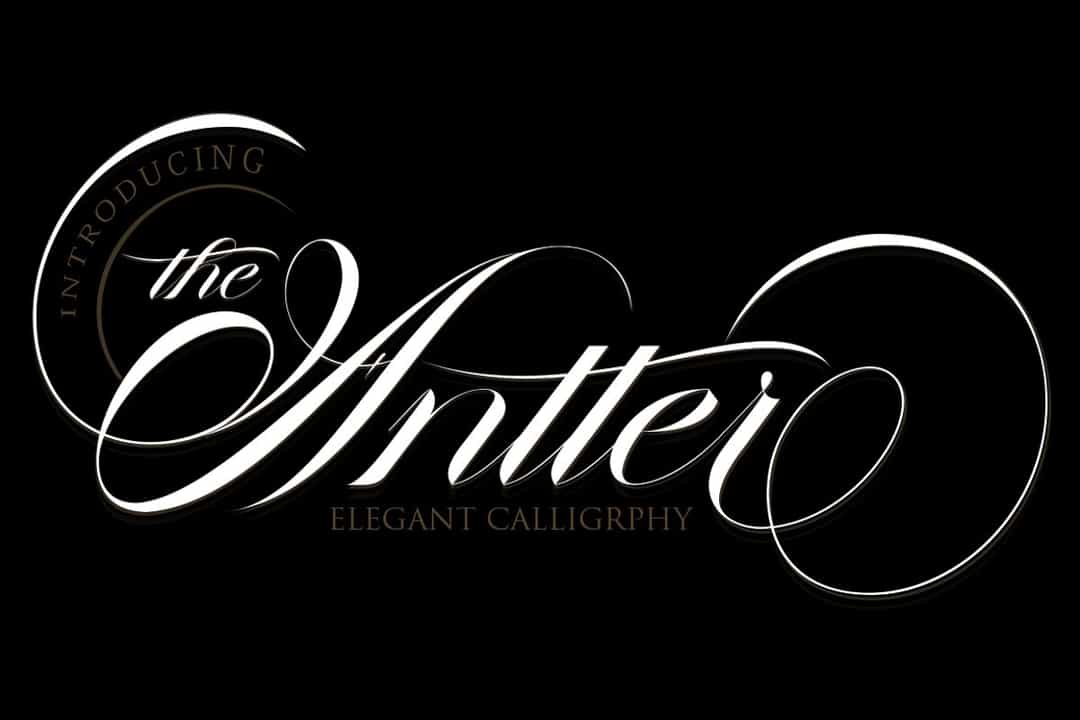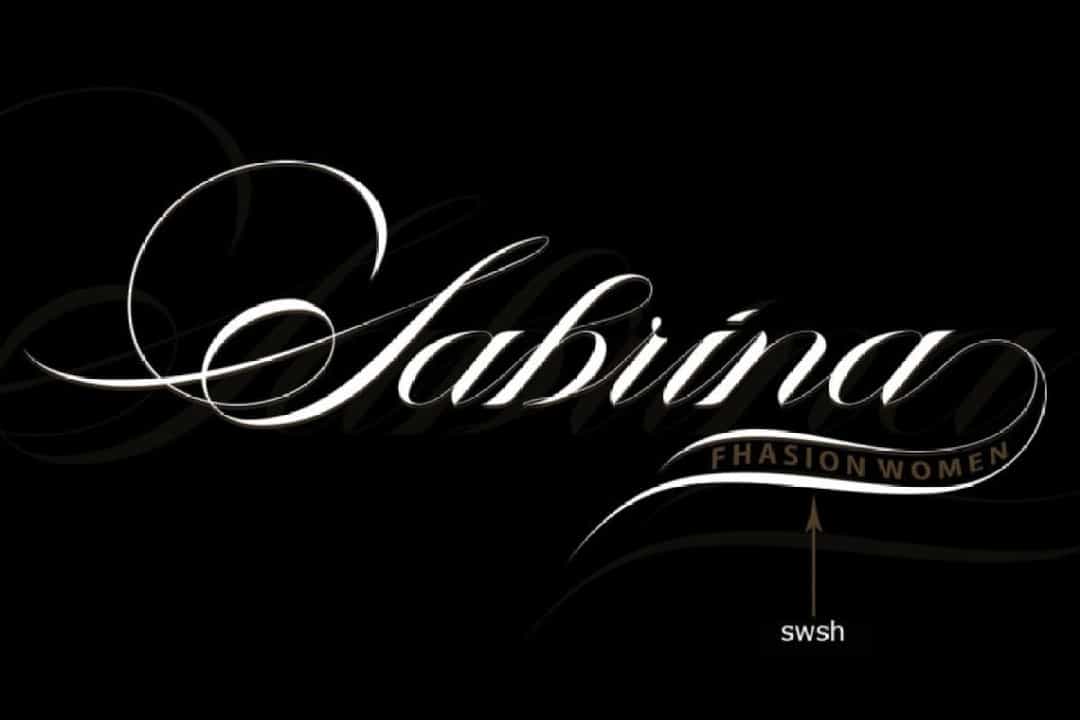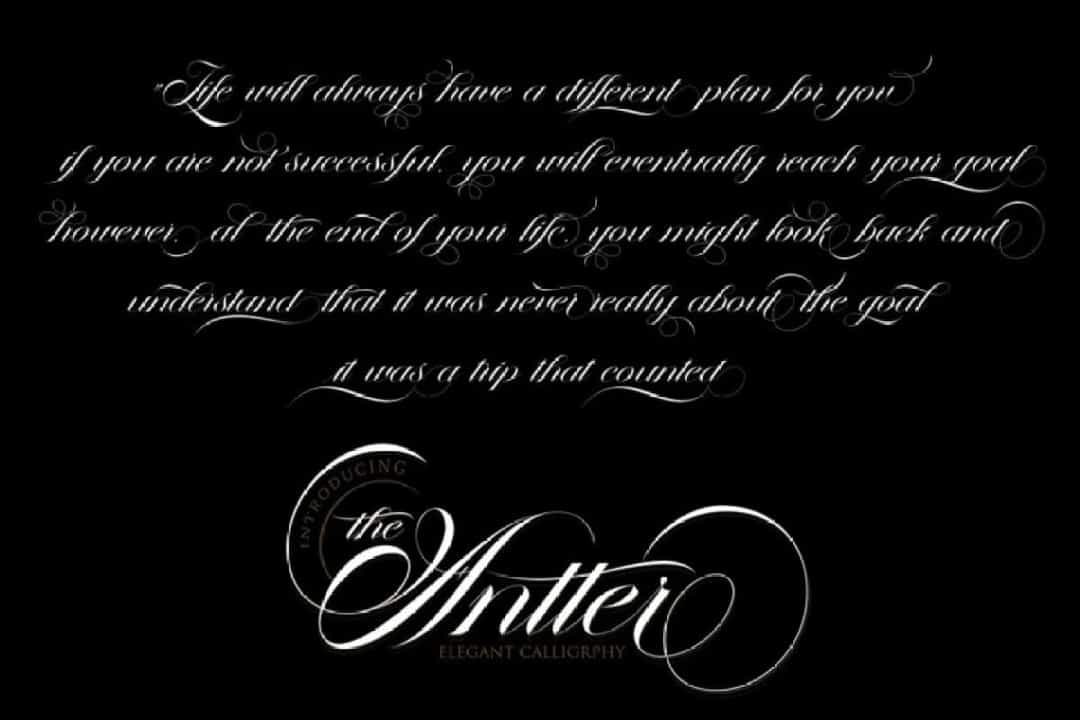
This font has a stylish change of character and is called The Antter, an inscription font for calligraphy. it is a copper decorative script that has the look of the classic designs with a modern touch, made with high quality to give a sophisticated style. Anter is appealing as a font that is bold, precise and modern, particularly for women, glamorous, elegant, simple, and clear because the letters include various decorative links.